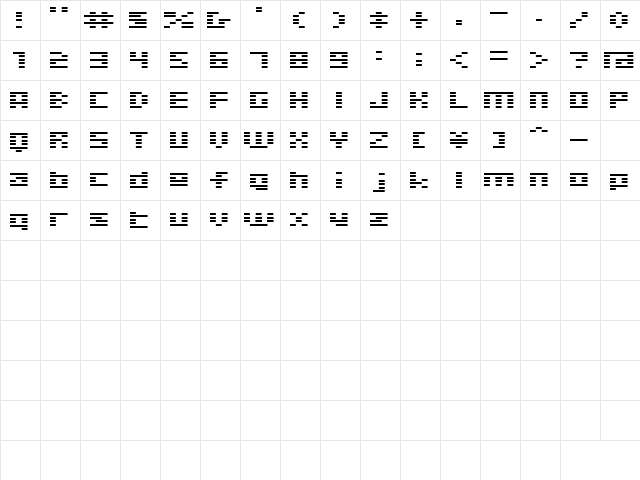
D3 Digitalism Regular Free Font
D3 Digitalism Regular
Design Context for D3 Digitalism
D3 Digitalism has a distinctly futuristic character, with geometric precision and clean angles that feel at home in technology, gaming, and sci-fi contexts.
Pro Tip: Try D3 Digitalism with generous letter-spacing in UI labels and navigation - the geometric forms benefit from room to breathe.